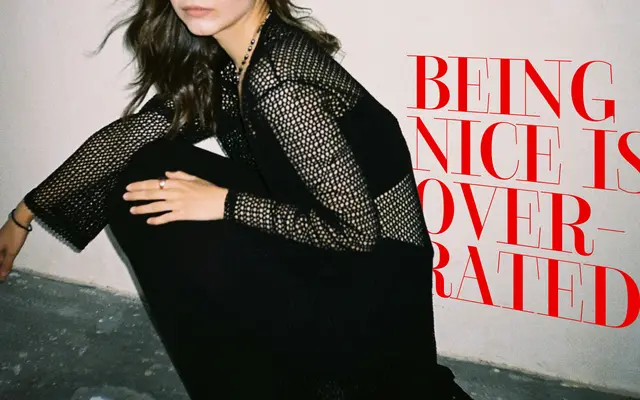
Arrogante
Zetafonts · Andrea Tartarelli, Mario De Libero, Cosimo Lorenzo Pancini · 2024
A Bodoni and Didot-derived display serif with extreme stroke contrast, semi-condensed proportions and overlapping serifs, released in 2024 by three Zetafonts designers.
Arrogante spans seven weights from Monoline to Bold, with a companion sub-family, Arrogantissimo, narrowing the proportions further for tighter headlines and posters. The high x-height and overlapping serifs push the design towards aggressive luxury display rather than text setting, and a variable font covering both weight and width axes is included in the full package. OpenType features include discretionary ligatures and nine stylistic sets, giving designers room to adjust specific letterforms.
Arrogante draws directly from the Bodoni and Didot tradition, using extreme stroke contrast, razor-sharp serifs and semi-condensed proportions in a manner clearly intended for display use rather than text setting.